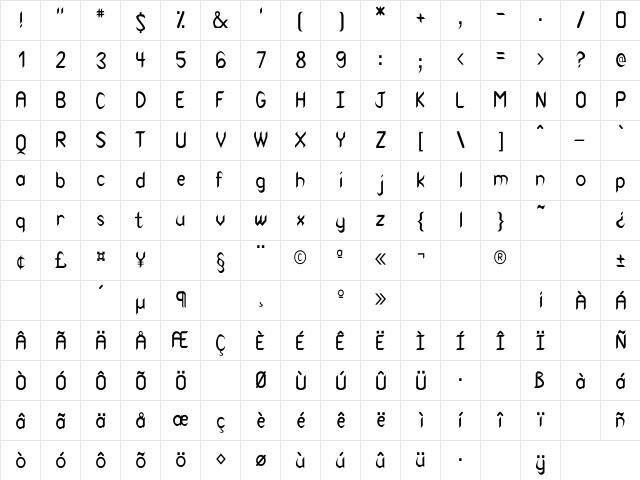
Rscanaith Th Regular
Design Context for Rscanaith Th Typeface
Rscanaith Th is a composed and adaptable typeface that performs quietly and consistently across a wide range of design contexts.